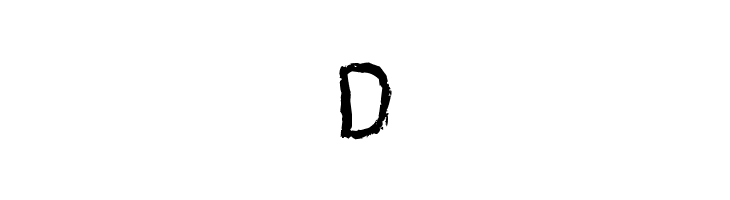
• OPTISin-Regular
A whimsical and artistic font with irregular, hand-drawn letterforms.
A classic serif font with elegant, well-defined characters and medium contrast.
• OPTIThaddeusLight-Suppl
An elegant serif font with sharp serifs and a classic, formal style.